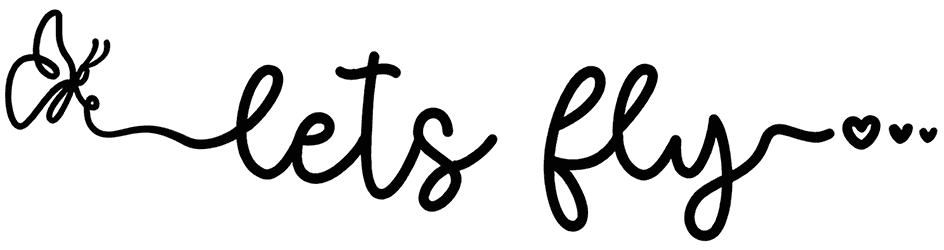
Lets Fly Script Font
Let’s Fly Script font can bring a human touch to your digital world and make the audience pause in the fast-paced world of technology. This butterfly font evokes a sense of nostalgia for simpler times and reminds us of our intimate connections.
This script font can add an attractive element and distinguish projects from others, like a unique signature. So if you want to show your individuality and creativity in packaging, tattoos, and apparel, add some heat to your work with it.